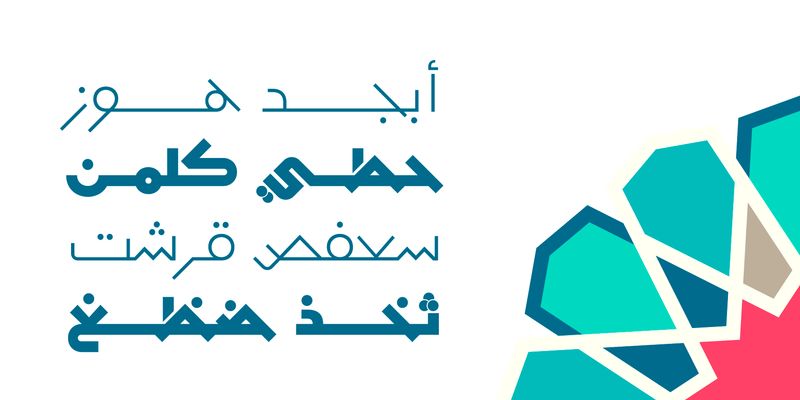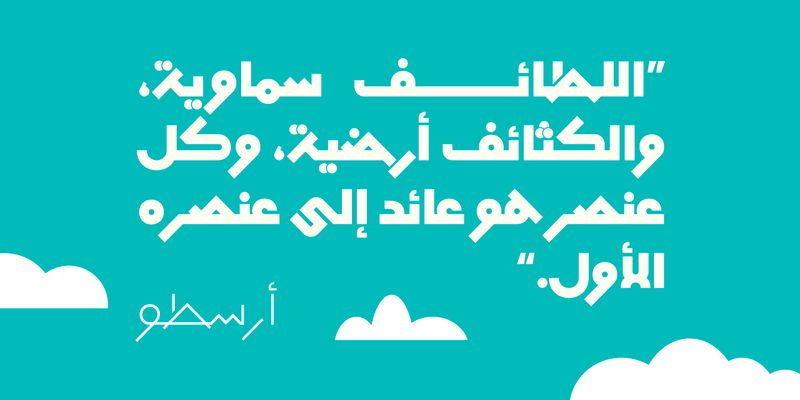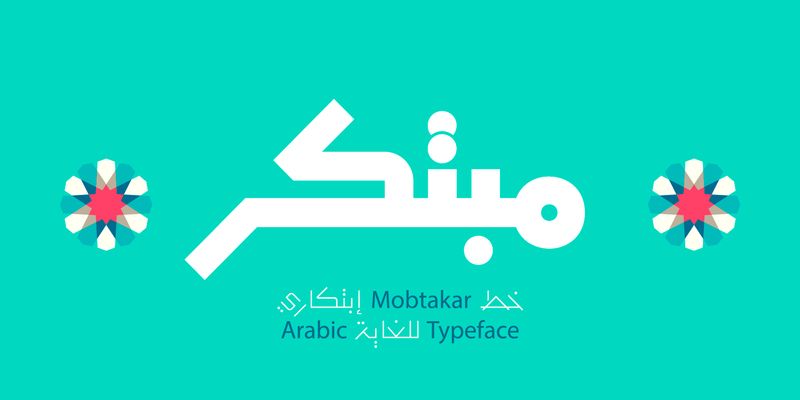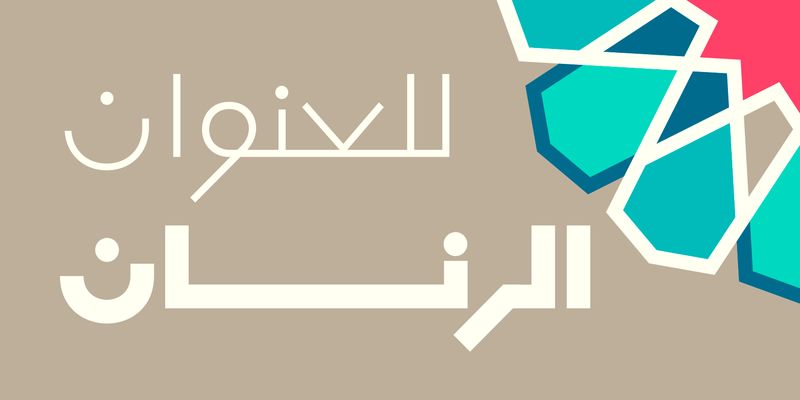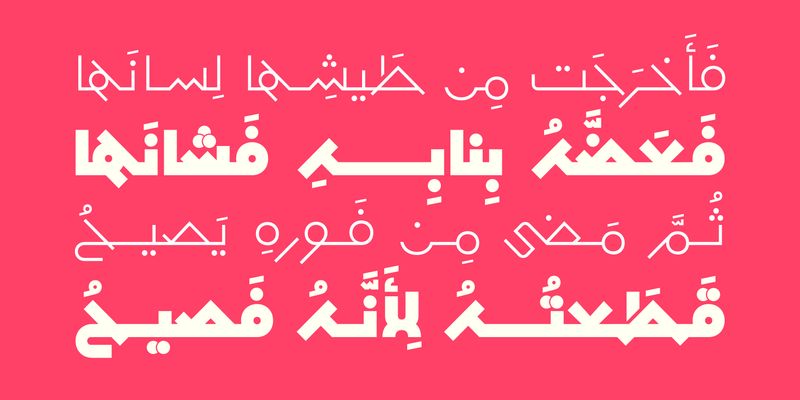
Mobtakar (the Arabic word for “Innovative”) is an Arabic display font featuring solid geometric letterforms that blend authenticity with modernity. Its distinctive style makes it an excellent companion for illustrations, geometric patterns, and visual motifs. The typeface includes two styles: Thin and Fat, and is suitable for web, print, mobile applications, and UI/UX Arabic typography.
Mostafa El Abasiry is an independent Arabic type designer whose work has helped define a new era of expressive Arabic typography. Since 2009, he has built a distinctive and influential catalogue of Arabic typefaces known for their bold geometry, modern aesthetics, and emotionally resonant visual character. His designs are widely recognized for merging the structural clarity of geometric construction with the creative freedom of contemporary display typography.
Mostafa’s approach is rooted in a balance of mathematical precision and artistic intuition. Many of his typefaces begin as geometric studies - circles, arcs, grids, and modular systems, before evolving into expressive display families with strong visual identity. Other designs explore texture, layering, and experimental forms, expanding the expressive potential of Arabic letterforms in digital environments.
In 2017, Mostafa introduced Tajreed, the first Arabic OpenType‑SVG color font ever created. This pioneering work brought textured, multi‑layered Arabic typography into mainstream digital use and opened a new category of expressive Arabic tools for designers and everyday creators. Tajreed later grew into a broader ecosystem of textured and experimental families that influenced how Arabic typography appears in mobile apps, creative platforms, and user‑generated content.
Mostafa’s typefaces have been used by a wide range of clients, from global brands such as Apple TV+ and Turkish Airlines to millions of everyday creators. Despite this reach, his design process remains deeply personal: every typeface begins with hand‑drawn sketches, geometric construction, and a search for a unique visual voice rooted in Arab visual culture.
Today, Mostafa continues to expand his catalogue with new display families, textured experiments, and modern interpretations of Arabic typographic heritage. His work aims to give designers and creators expressive tools that did not exist before - tools that make Arabic typography feel bold, modern, and alive.